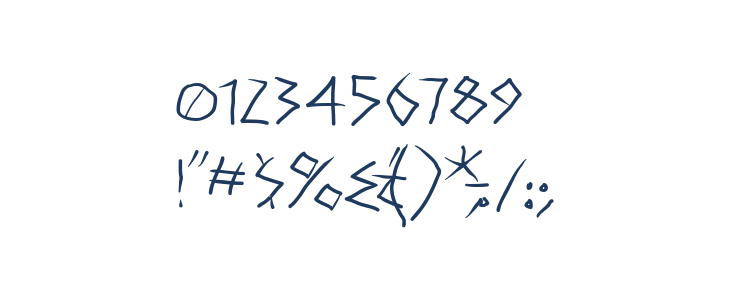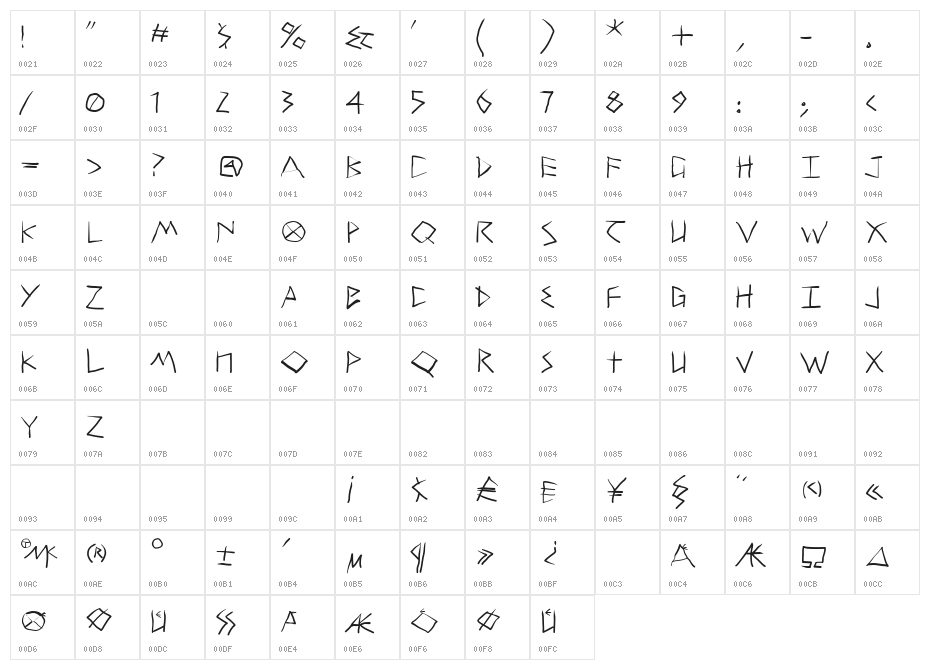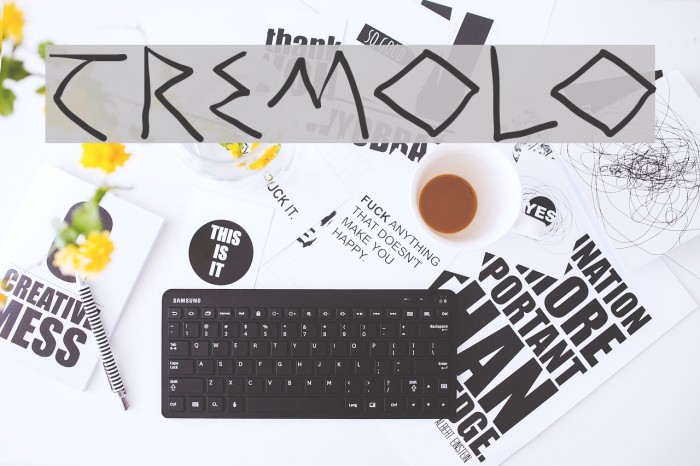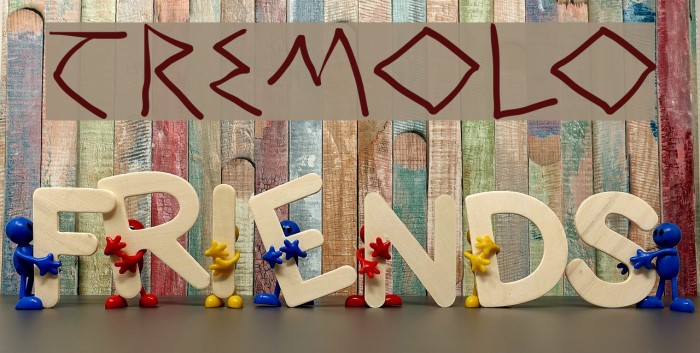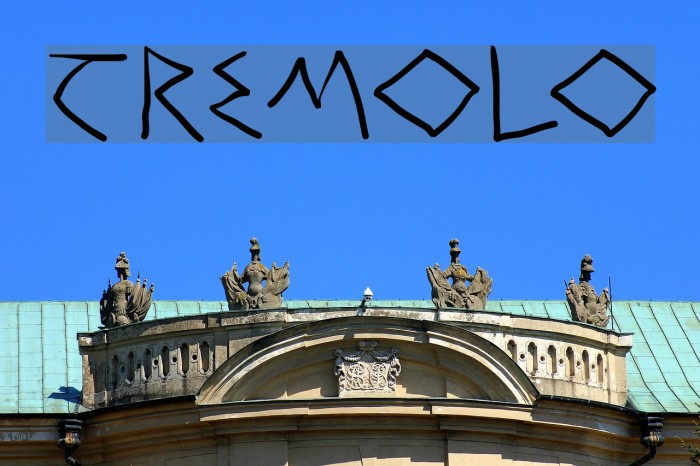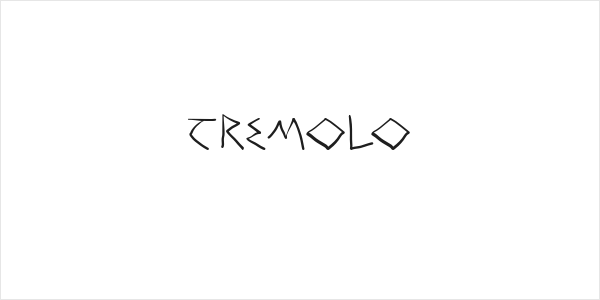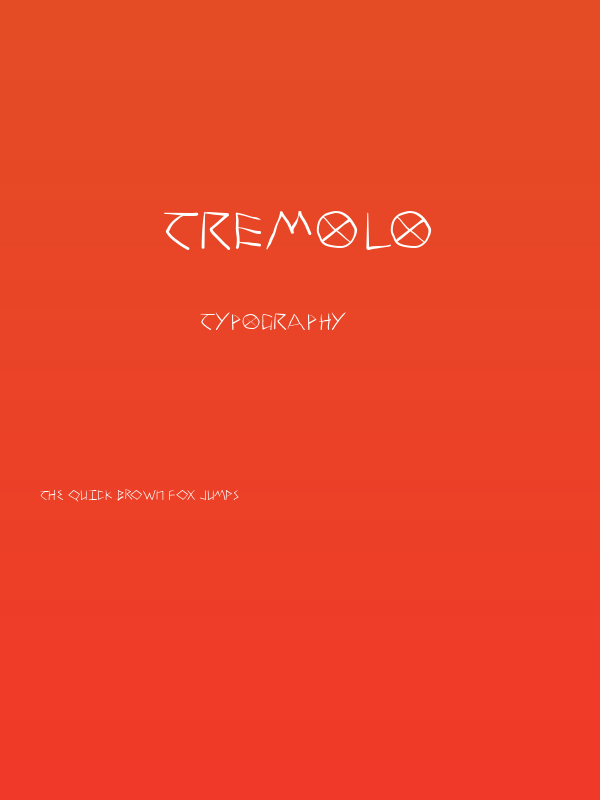
Tremolo Font
Tremolo Description
This font features a unique, hand-drawn style with an irregular, jagged appearance that gives it a dynamic and edgy feel. The characters are slightly tilted and vary in thickness, adding to the informal and artistic look. The uppercase and lowercase letters maintain a consistent style, with angular lines and sharp edges. Numbers and special characters follow the same aesthetic, making the font cohesive throughout. Its distinctiveness makes it suitable for creative projects where a bold statement is desired.
| Proposed Projects | Ideal for album covers, posters, graffiti art, and any project requiring a bold, artistic touch. |